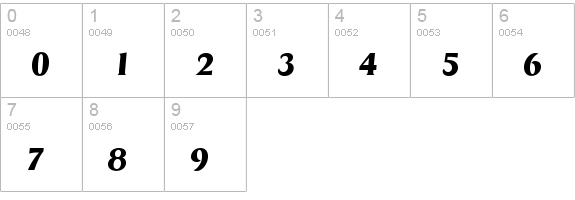
Introducing Dragon-BoldIta font, a stunning display typeface that exudes power and boldness with its distinctive design. This font is perfect for making a statement and grabbing attention in any project or design. With its sharp, angular edges and strong lines, Dragon-BoldIta commands presence and leaves a lasting impression. Best of all, Dragon-BoldIta font is completely free to download at FontsMarket.com. Whether you're working on a logo, poster, or any other creative project, this font is sure to elevate your design and make it stand out from the crowd. Download Dragon-BoldIta today and unleash the power of this striking typeface in your next project.